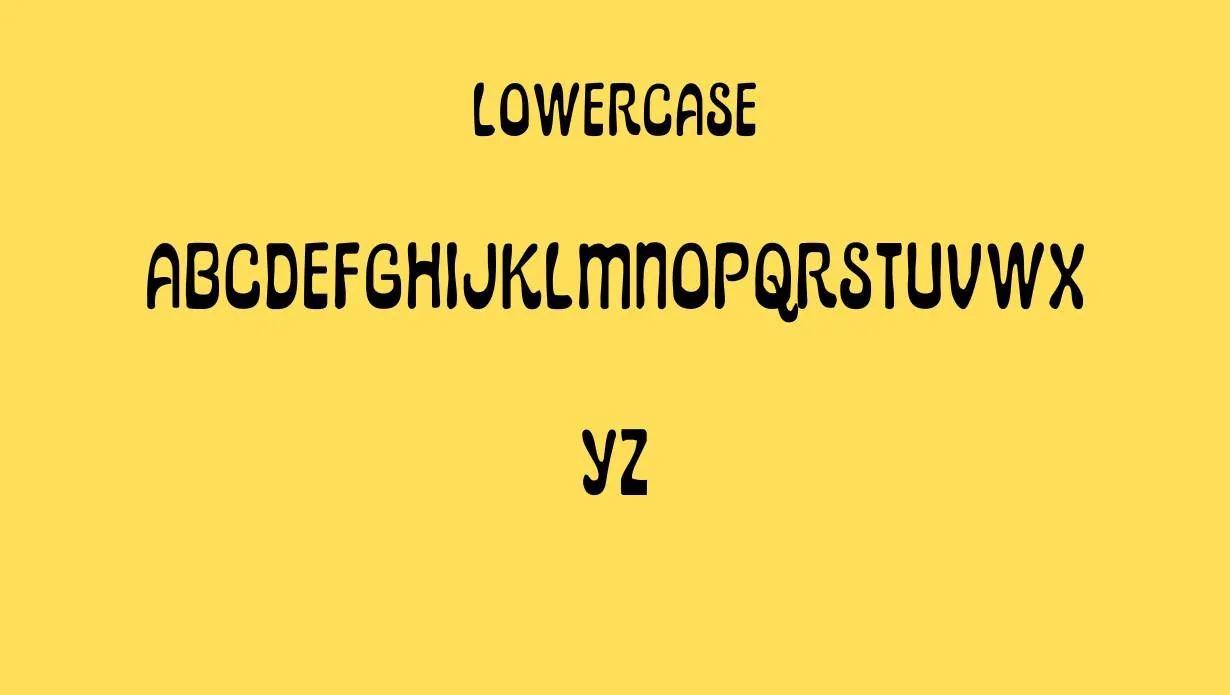
Iconian Fonts created this fancy typeface to gain the attention of the viewers. Pepperland Font style has neat, clean, bold character shapes that make it perfect for enhancing the quality of your work.
Many types of stylish logo designs can be created using this unique font. By pairing this font with other fonts, you can create imaginary and brilliant designs.In addition to creating an eye-catching design, it also gives your project an exciting look. Many applications use this font, including Adobe Illustrator, etc.
Pepperland Font Family